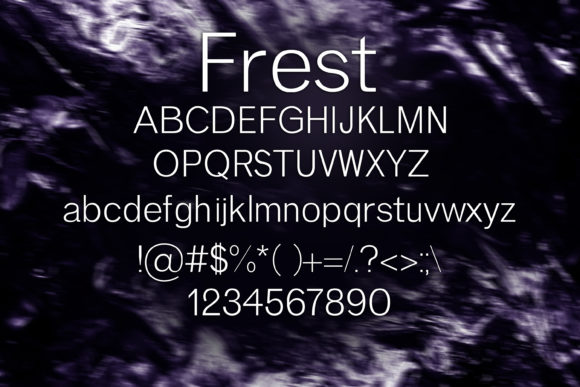
Introducing Frest Font: The Smart and Cool Sans Serif with a Unique Style
Are you tired of using the same old fonts in your designs? Look no further than Frest Font, a smart and cool sans serif font with a unique style that’s sure to take your creative projects to the next level. In this article, we’ll dive into the features and benefits of Frest Font, and explore how it can be used to elevate your designs and craft stunning visual content.
What is Frest Font?
Frest Font is a modern sans serif font that’s designed to be both stylish and versatile. With its clean lines, simple shapes, and unique flair, Frest Font is perfect for designers and crafters looking to add a touch of sophistication and elegance to their work. Whether you’re creating a logo, brochure, or social media graphic, Frest Font is the perfect choice for anyone looking to make a statement.
Key Features of Frest Font
• Unique Style: Frest Font boasts a distinctive style that’s both modern and timeless. Its unique shape and clean lines make it stand out from other sans serif fonts.
• Versatility: Frest Font is incredibly versatile, making it suitable for a wide range of design applications, from print to digital.
• Easy to Read: Despite its unique style, Frest Font is incredibly easy to read, making it perfect for body text and headlines.
• Scalable: Frest Font is designed to be scalable, ensuring that it looks great at any size.
Benefits of Using Frest Font
So why should you choose Frest Font for your next design project? Here are just a few benefits of using this amazing font:
• Adds Visual Interest: Frest Font adds a touch of visual interest to any design, making it perfect for projects that need a bit of flair.
• Enhances Brand Identity: With its unique style, Frest Font can help to enhance your brand identity and make your designs stand out from the crowd.
• Improves Readability: Frest Font’s clean lines and simple shapes make it easy to read, even at small sizes.
How to Use Frest Font in Your Designs
Using Frest Font in your designs is easy. Here are a few tips to get you started:
• Pair it with Other Fonts: Frest Font looks great when paired with other fonts. Try pairing it with a serif font for a classic look, or with another sans serif font for a modern feel.
• Experiment with Sizes: Frest Font is designed to be scalable, so don’t be afraid to experiment with different sizes to find the one that works best for your design.
• Use it for Headlines and Body Text: Frest Font is perfect for both headlines and body text. Use it to create stunning headlines, or as a body font for easy reading.
In conclusion, Frest Font is a smart and cool sans serif font with a unique style that’s perfect for designers and crafters looking to elevate their designs. With its versatility, readability, and scalability, Frest Font is the perfect choice for anyone looking to add a touch of sophistication and elegance to their work. So why not give Frest Font a try today and see the difference it can make in your designs?